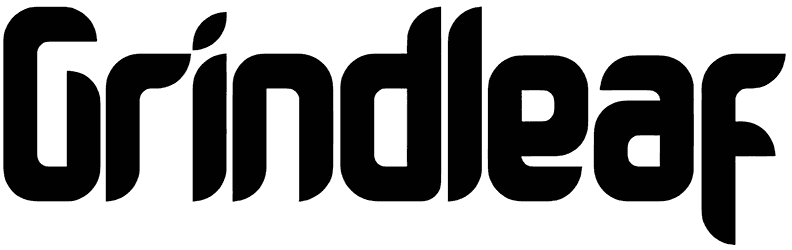
Grindleaf Font
Are you interested in unique modern styles and want to have such a form for your design? Look over this display font that has the potential to give a natural face to your words and keep them in a modern and humble visual at the same time. Grindleaf has a decorative mood that is going to be amazing for a formal, feminine event invitation card.